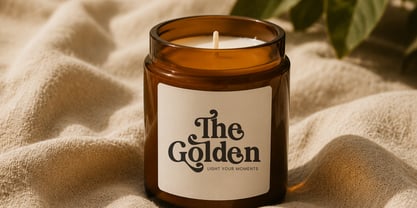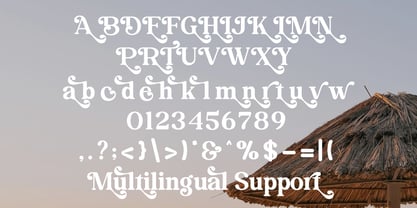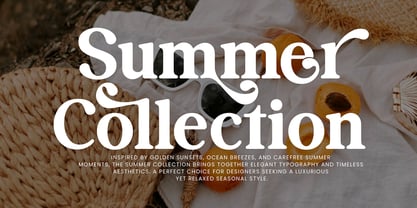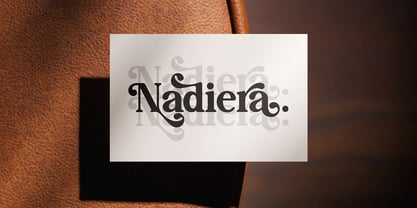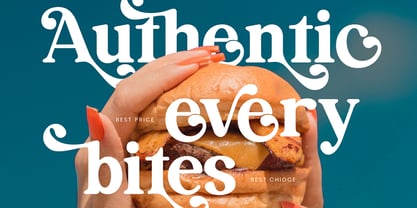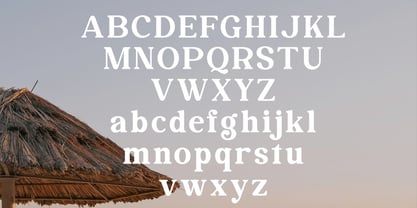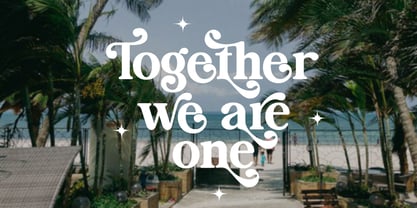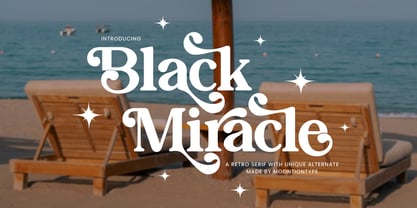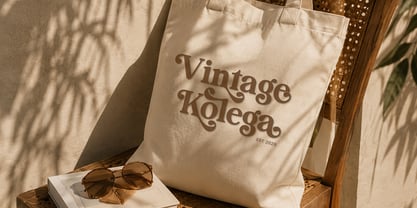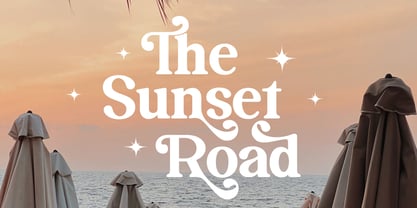
Black Miracle
by Moontiontype
The Black Miracle Font Family was designed by Dinda Nur Dwiyanti and published by Moontiontype. Black Miracle contains 1 styles. More about this family
Bring timeless elegance and vintage charm to your creative projects with Black Miracle, a beautifully crafted retro serif font featuring graceful swashes and stylish alternate characters. Inspired by classic typography from the 70s with a modern luxury touch, this font is perfect for creating eye-catching designs that stand out.
Whether you're designing branding materials, logos, packaging, social media graphics, or wedding invitations, Black Miracle delivers a sophisticated and memorable look.
Whether you're building a vintage brand or creating bold headlines, Black Miracle offers endless creative possibilities.
Designers: Dinda Nur Dwiyanti
Foundry: Moontiontype